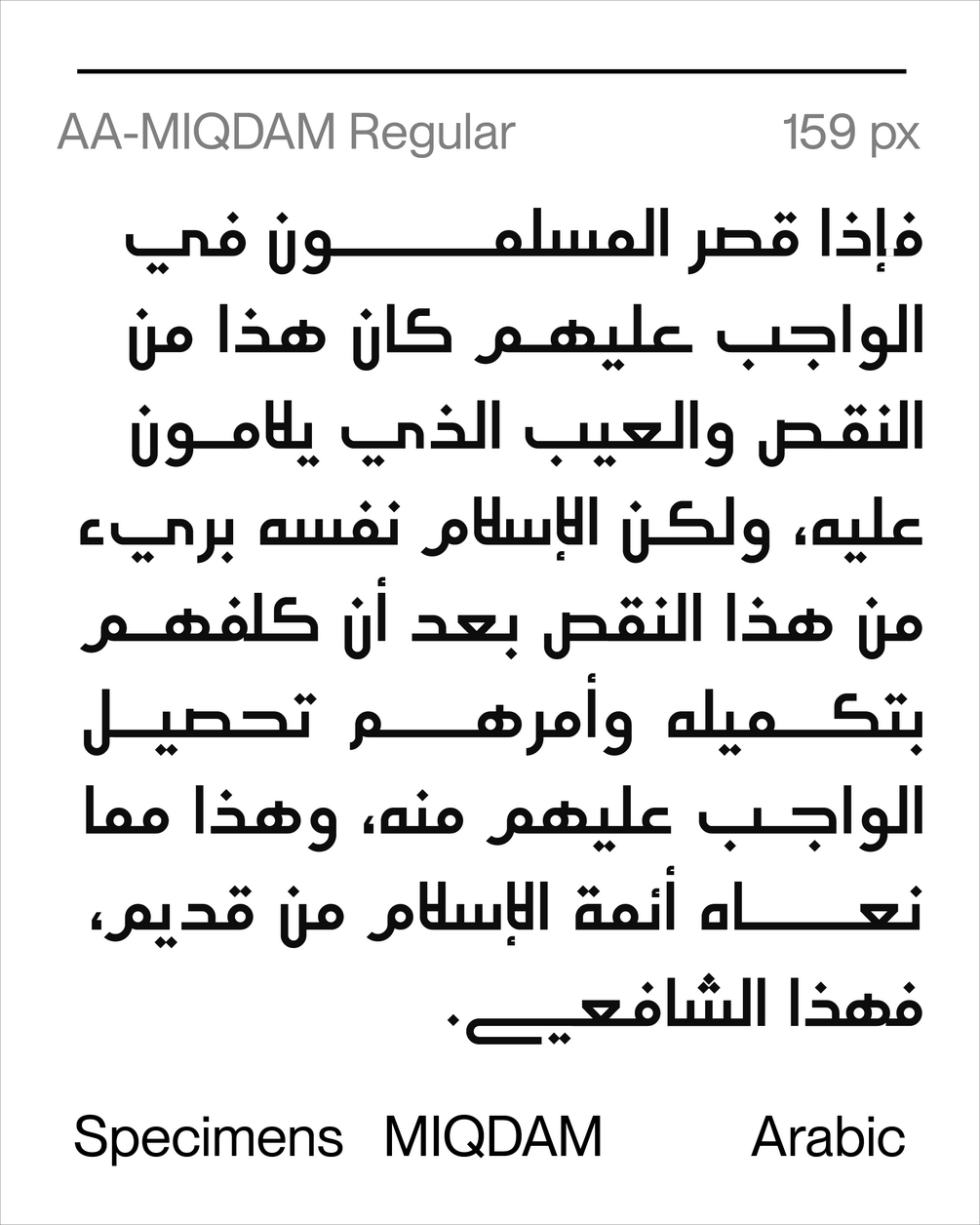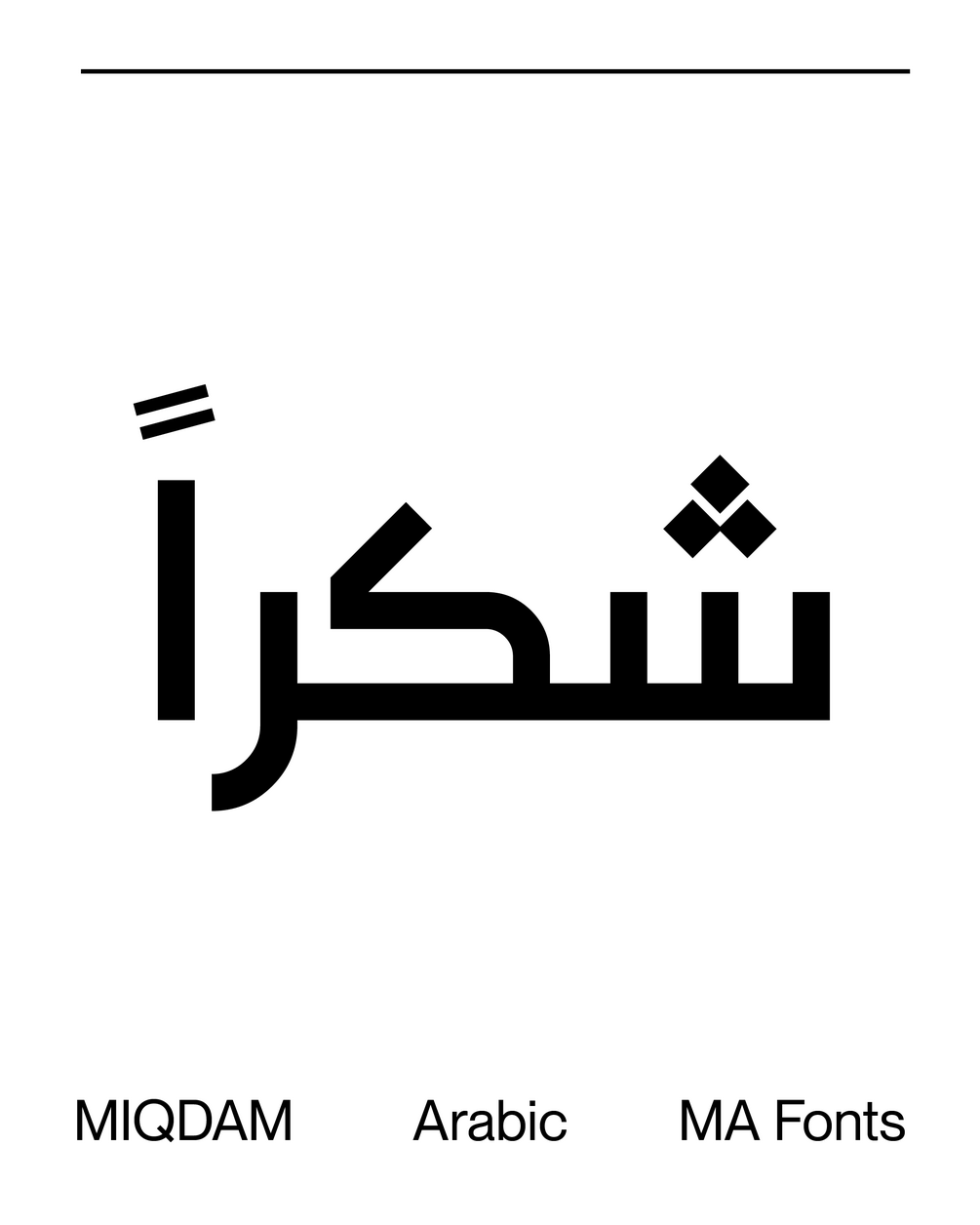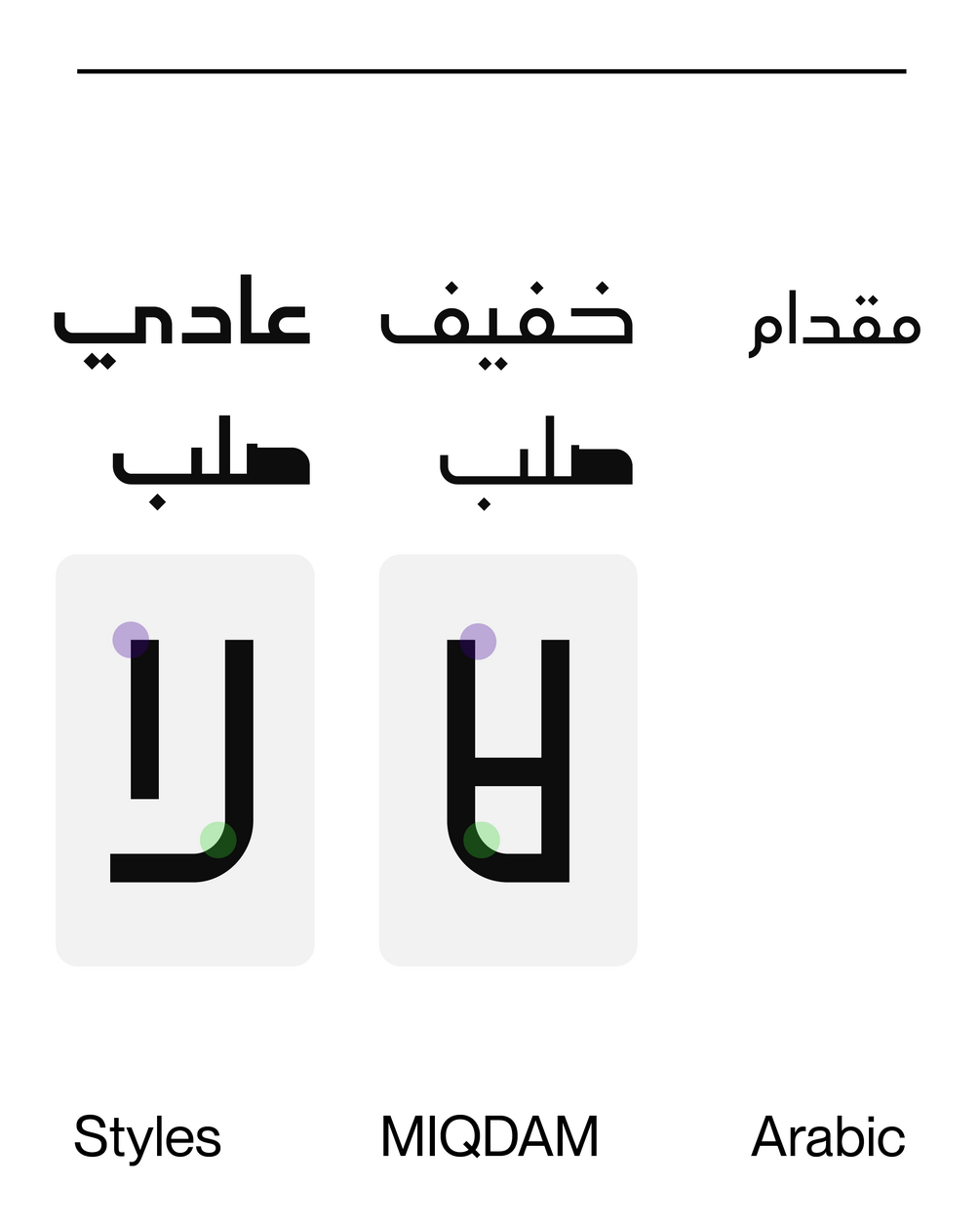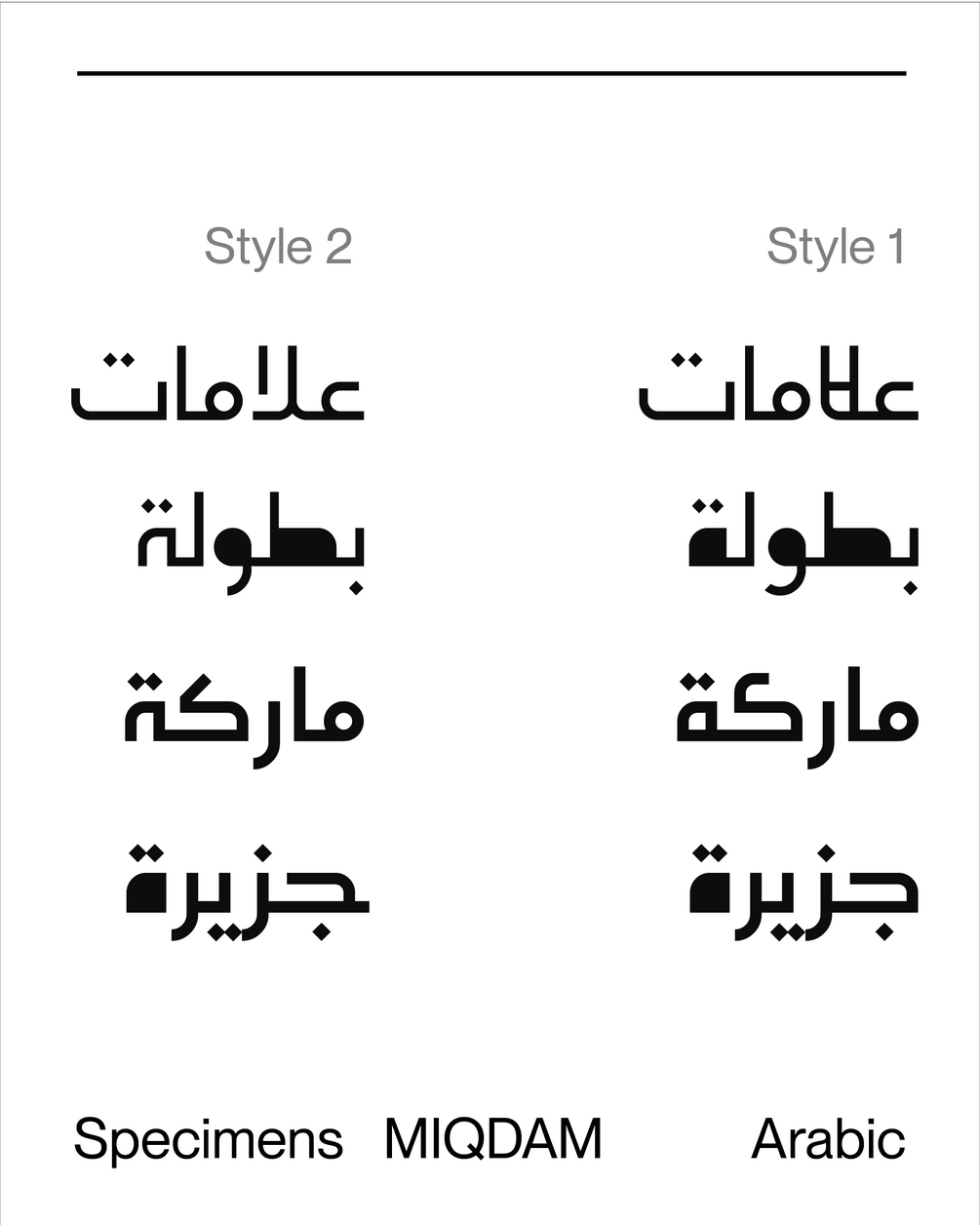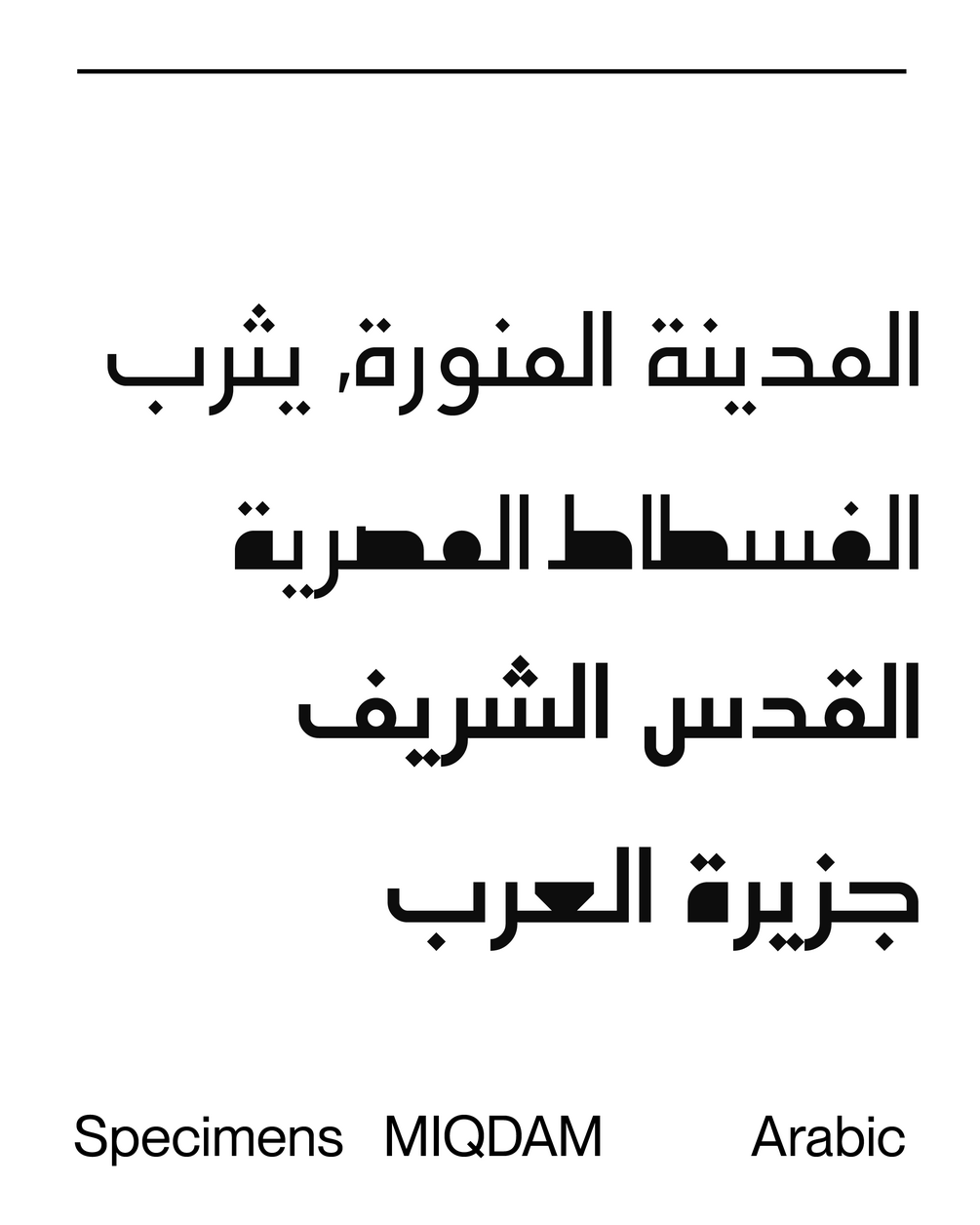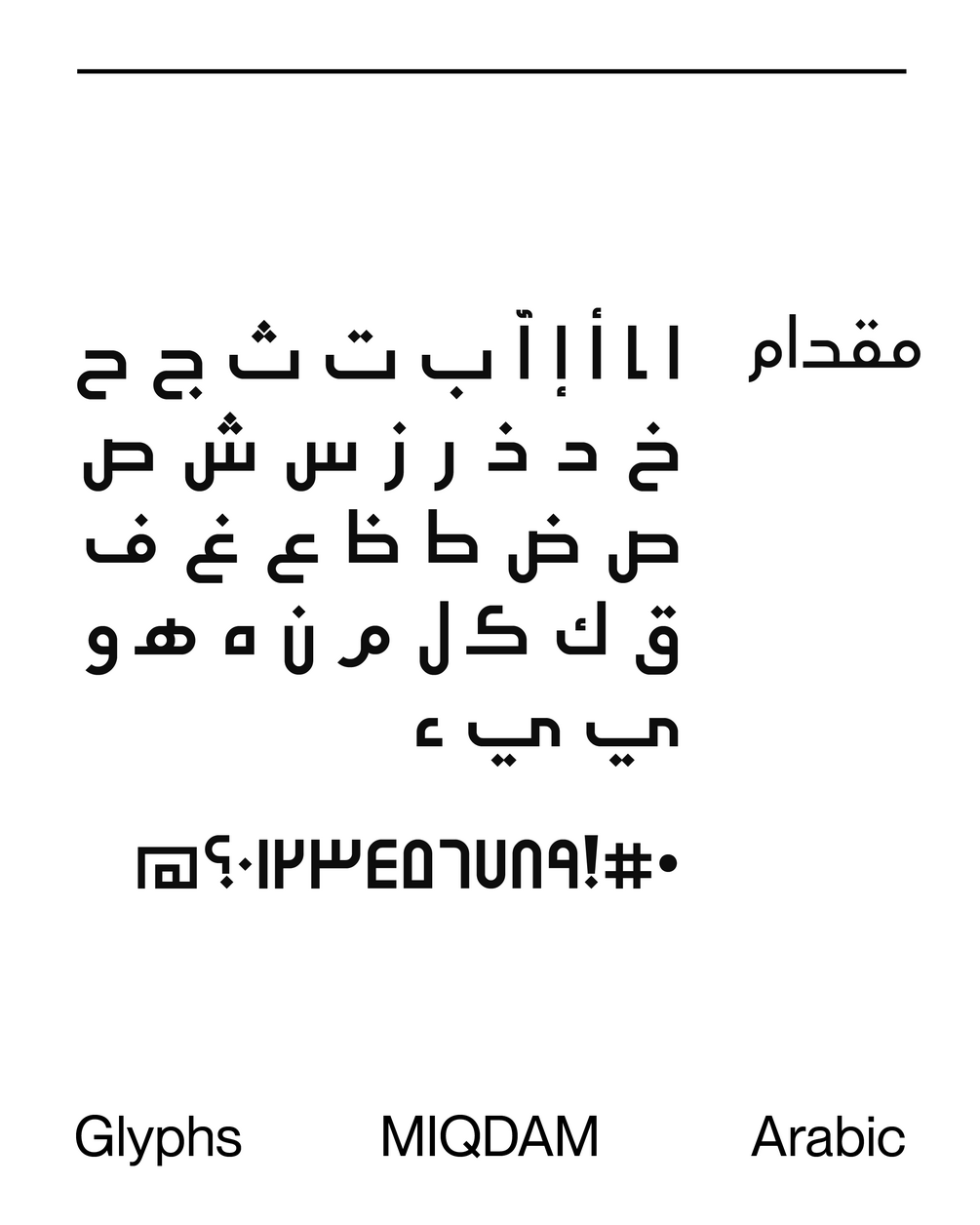
MIQDAM Arabic / 4 Weights
Miqdam Arabic is a distinctive Arabic typeface offering four weights: Light, Regular, Light Bold, and Regular Bold. Drawing inspiration from Kufic and modern Naskh scripts, it blends traditional and contemporary elements, resulting in a modern and unique design. With its four weights, the typeface provides versatility for various design applications. Featuring a contemporary design that harmonizes classical heritage with modern aesthetics, Miqdam Arabic is suitable for a wide range of applications. It can be used for titles, corporate visual identities, posters, and more. The availability of four weights allows for flexibility and versatile usage, meeting diverse design needs with an elegant and clear style.